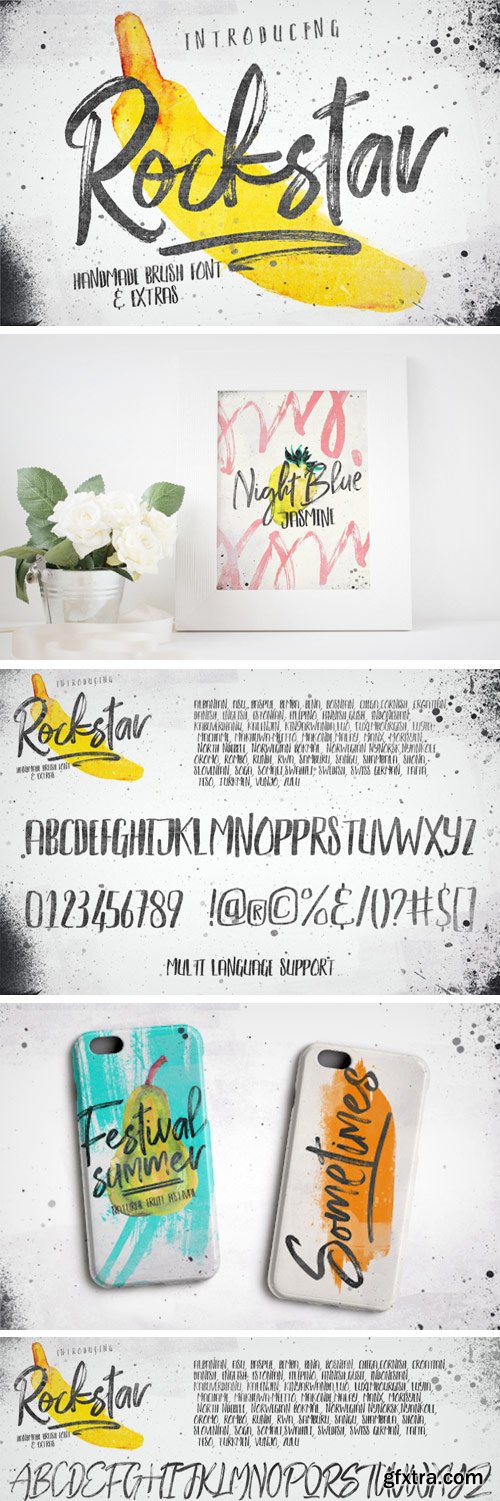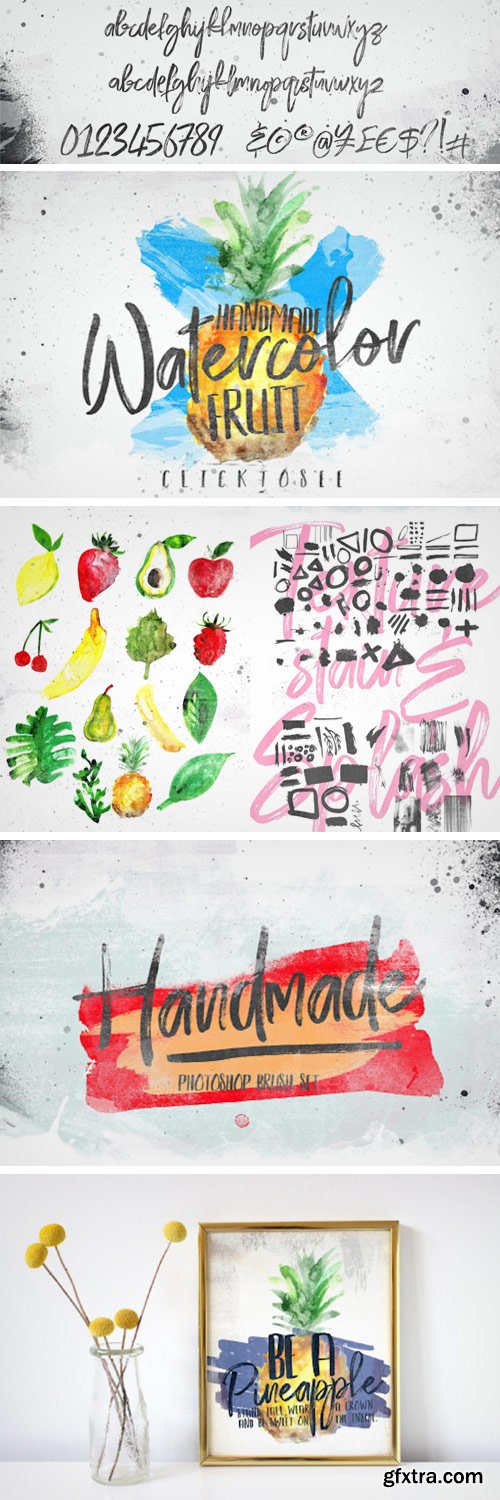
Rockstar Font Duo
Rockstar Font Duo is a handlettered brush typeface features two fonts: Rockstar Script which has alternates & swashes as well, plus another font – Rockstar Display. Rockstar Font Duo contains uppercase and lowercase letters, numbers, symbols, multilingual accents.
On top of all that, this pack also includes a Photoshop Brush set & Watercolour Fruits! With the Rockstar font family and brush set you can make all sorts of creative designs like posters, products, invitations & cards, editorial designs, advertisements, marketing materials, apparel, prints, and plenty more.